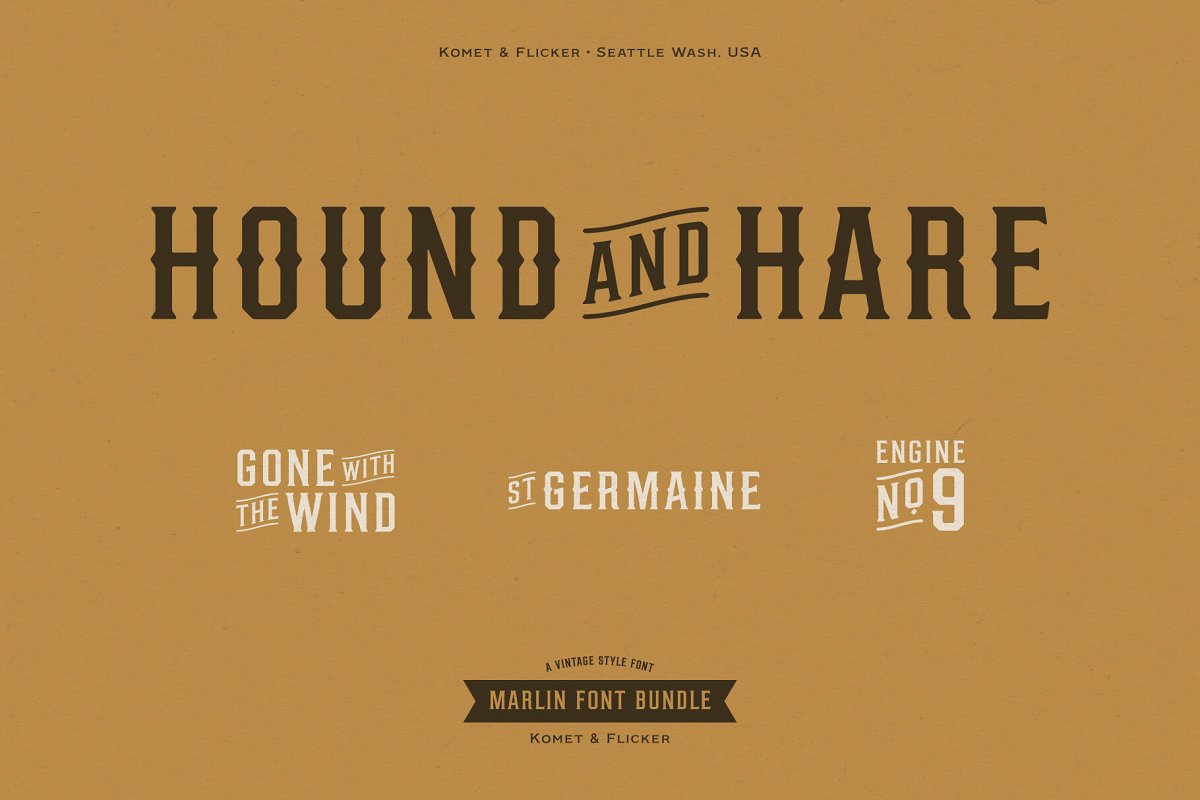
About the MARLIN Vintage Font Bundle
NEW! Includes a set of 42 connecting word character glyphsGet all three font styles for a 20% savings! MARLIN is a condensed vintage style serif display font that works great for logos, packaging, branding, menus, advertising, and posters, The lowercase letter set has different letterforms allowing you to mix and match upper and lowercase for a variety of looks